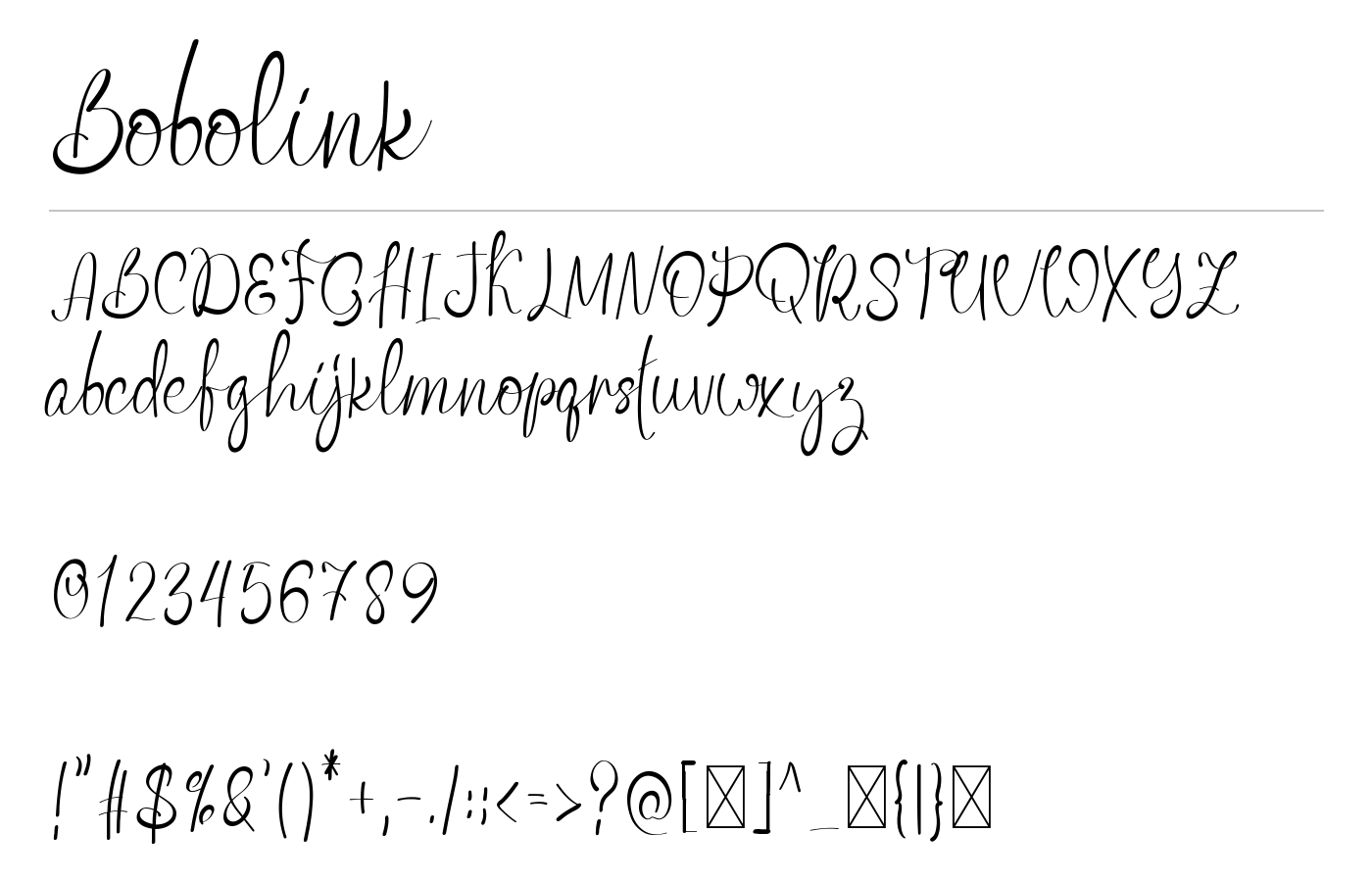
Bobolink is an elegant and delicate script font that features thin, flowing strokes with a graceful, hand-lettered feel. Its slender, tall letterforms with subtle curls and loops convey a refined, artistic personality ideal for feminine branding, invitations, and creative projects seeking a touch of sophistication. This font works beautifully in headlines, logos, and decorative text where a stylish, airy look is desired.
Bobolink Font
About Bobolink Font
| Designer | Elchin Panahov/Murad Aghabalayev |